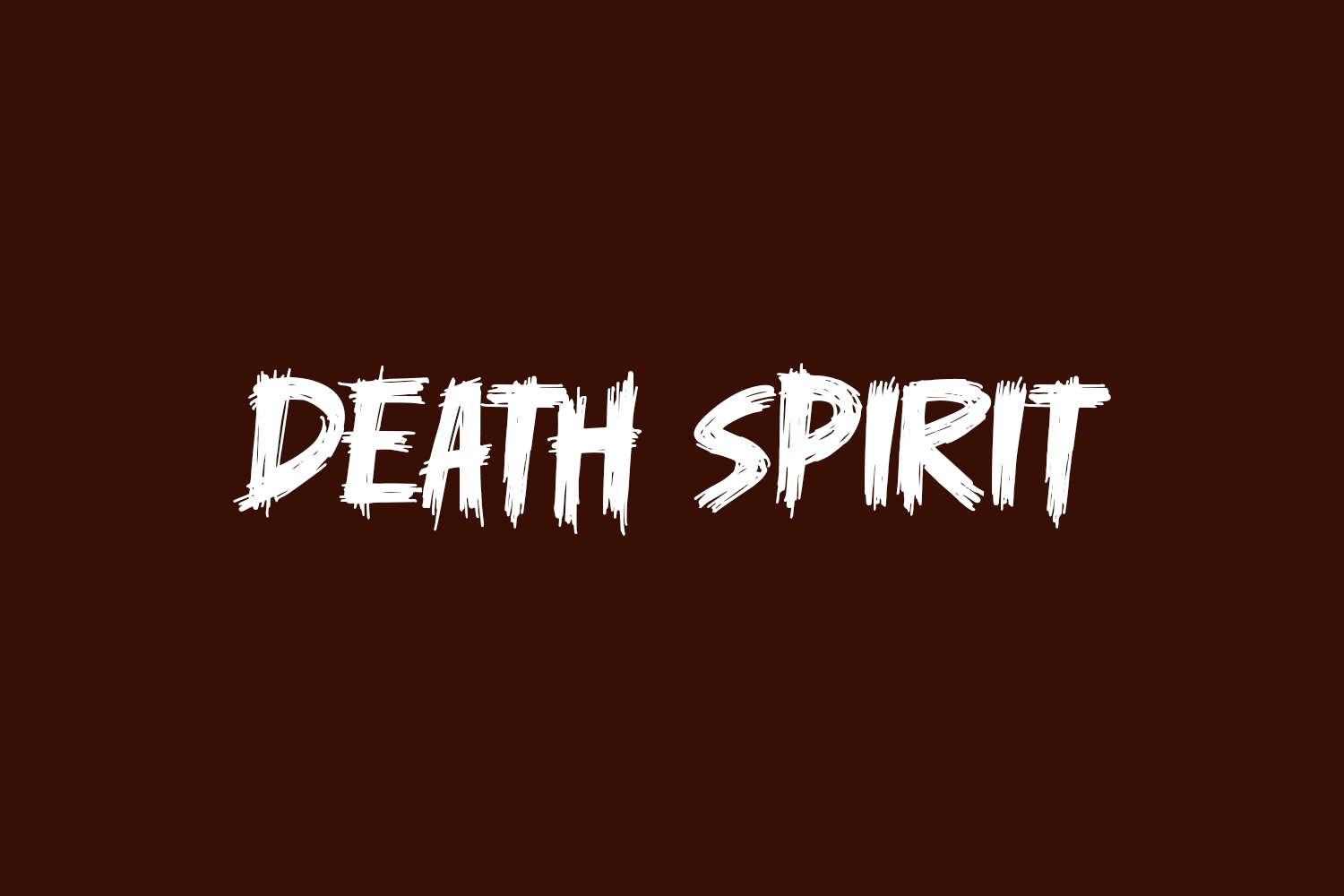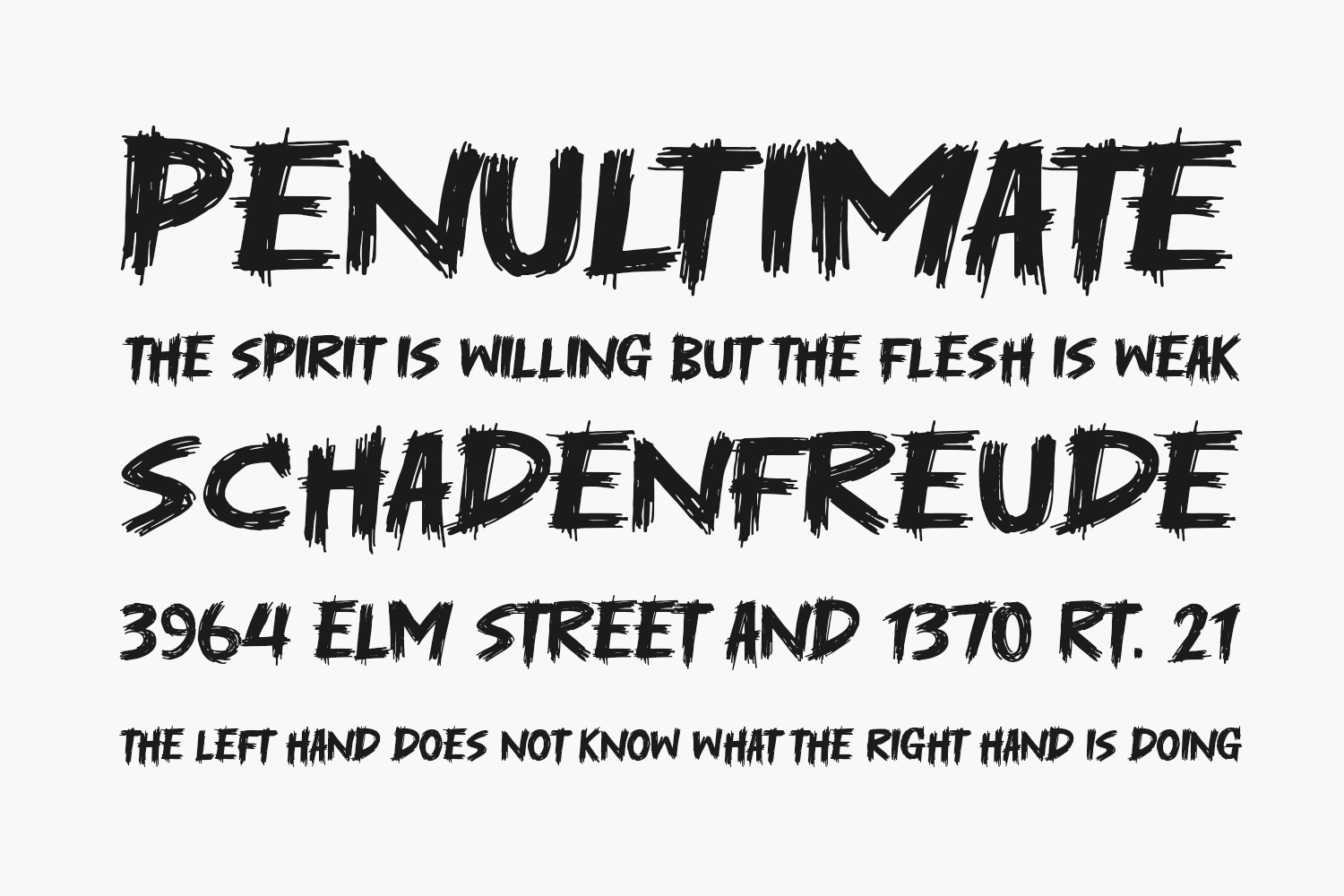
Introducing Death Spirit Free Font – a captivating horror display font designed specifically for your Halloween projects. This versatile font is perfect for logos, branding, greeting cards, posters, and any design you can imagine. Its eerie aesthetic effortlessly complements a wide range of horror and Halloween-themed projects, guaranteeing that your creative ideas will truly stand out. Unleash the chilling power of “Death Spirit” and watch your designs come to life with spine-tingling allure. Death Spirit Free Font is free for personal use only. Please purchase the full version for commercial use.